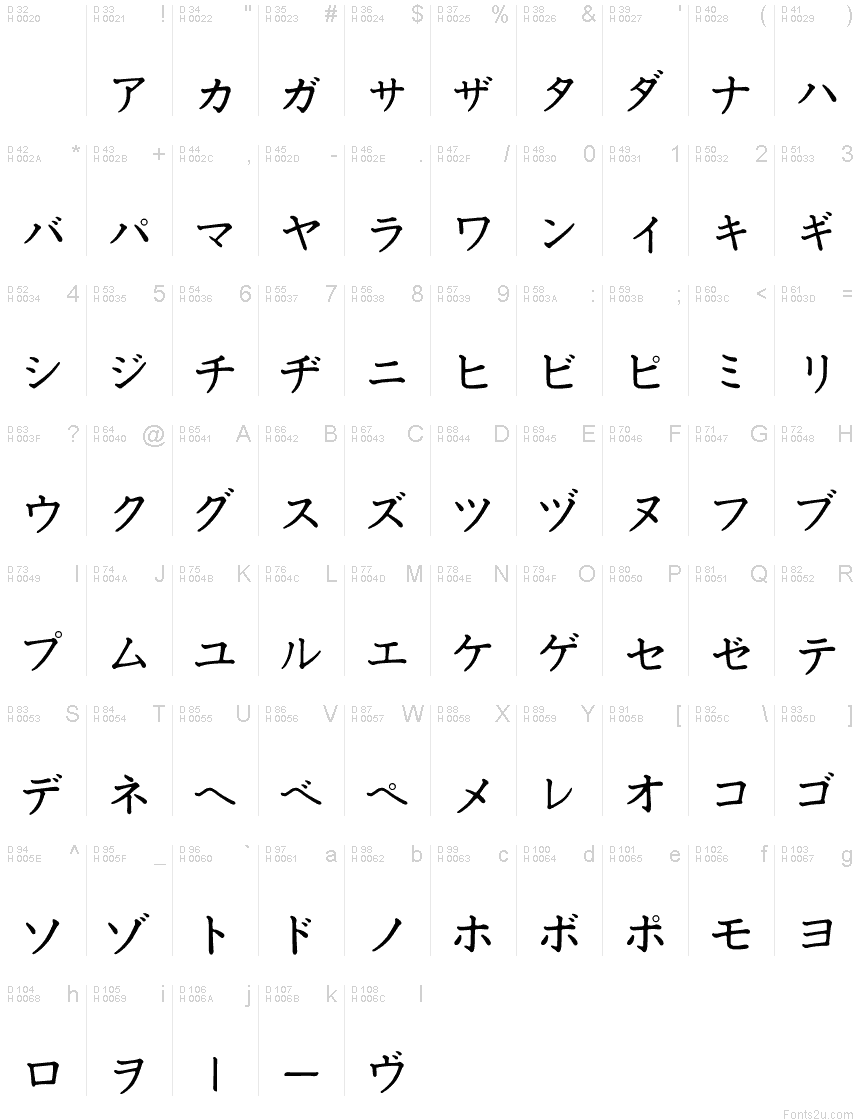
Katakana
Katakana font by R. Bernard is a free Japanese decorative typeface that captures the feel of quick, inky brushstrokes. The strokes curve softly and taper at the ends, giving text a handwritten energy rather than a stiff, mechanical look. It feels casual but still clearly legible, like notes dashed off on textured paper for a street-food stall or festival banner.
Using Katakana, this free font shines on ramen shop logos, manga-inspired posters, game interfaces, anime watch-party flyers, packaging, and bold social graphics. Its flowing rhythm pulls the eye along a line of text, adding movement and character wherever you need a strong Japanese accent. Try pairing Katakana with a clean geometric sans for body copy and let this typeface handle headlines and short phrases at larger sizes.